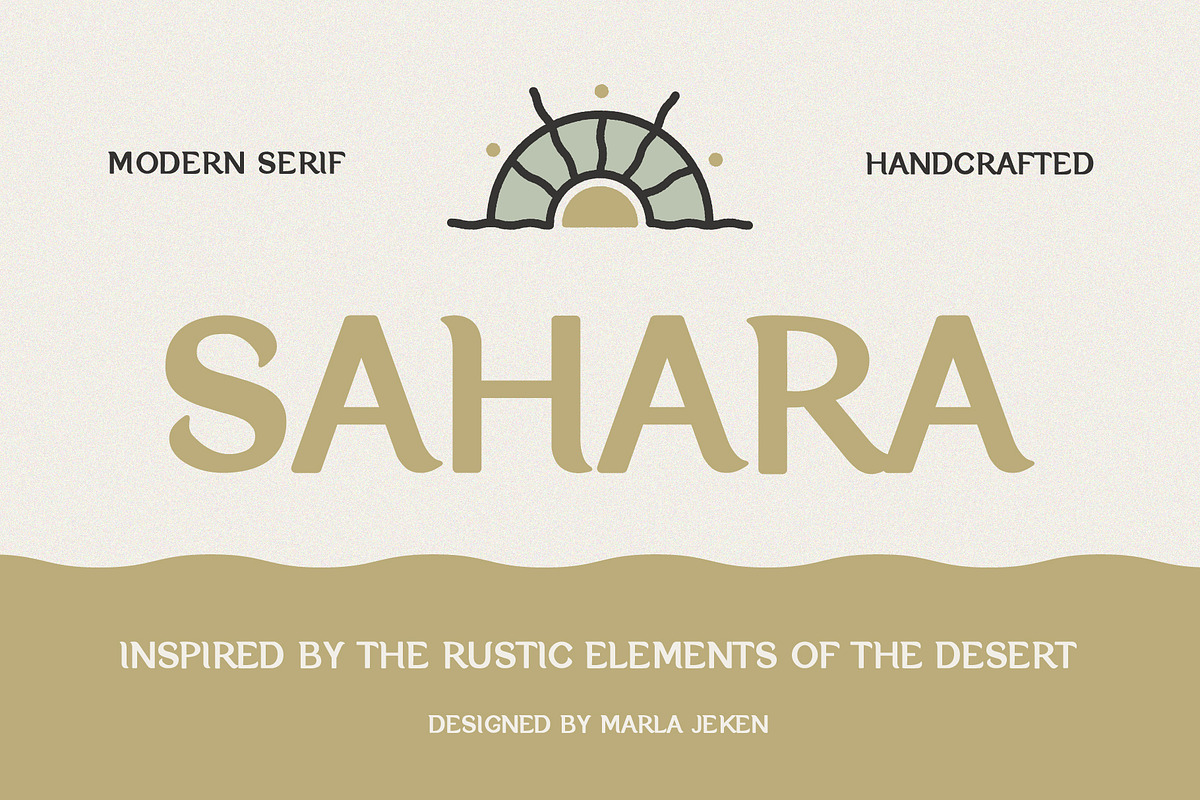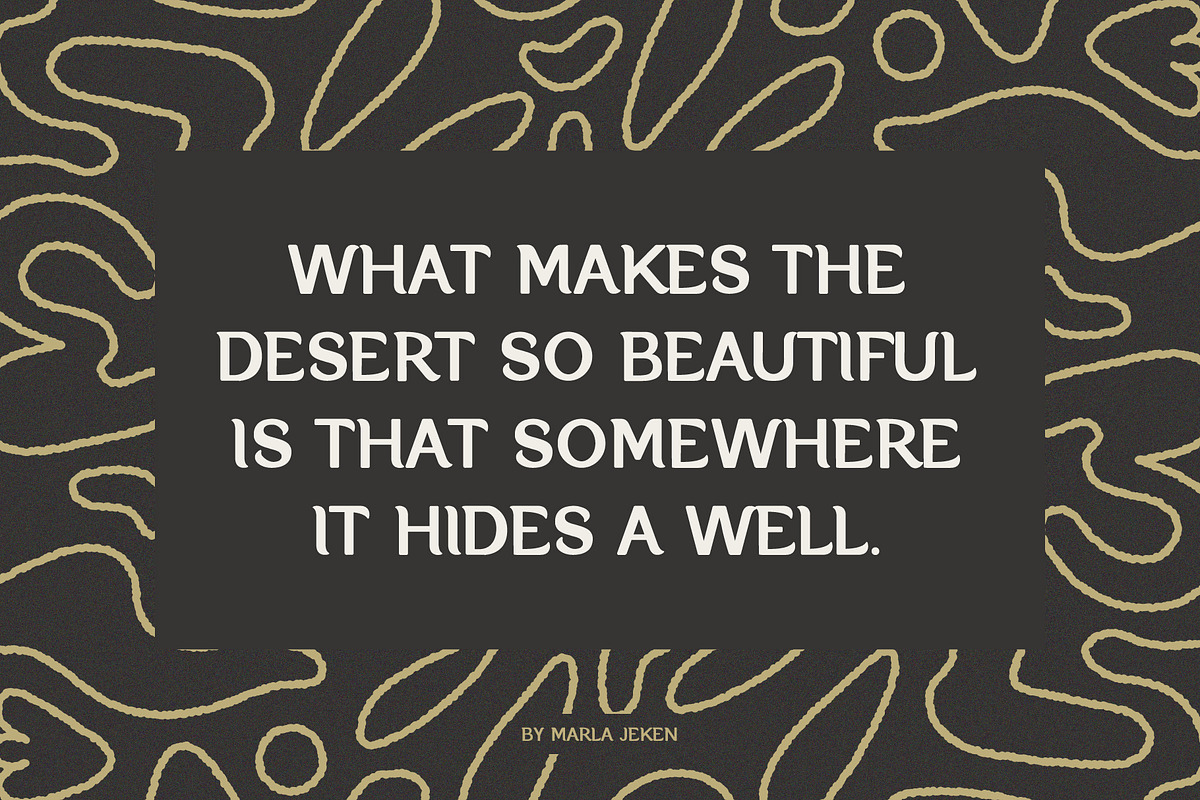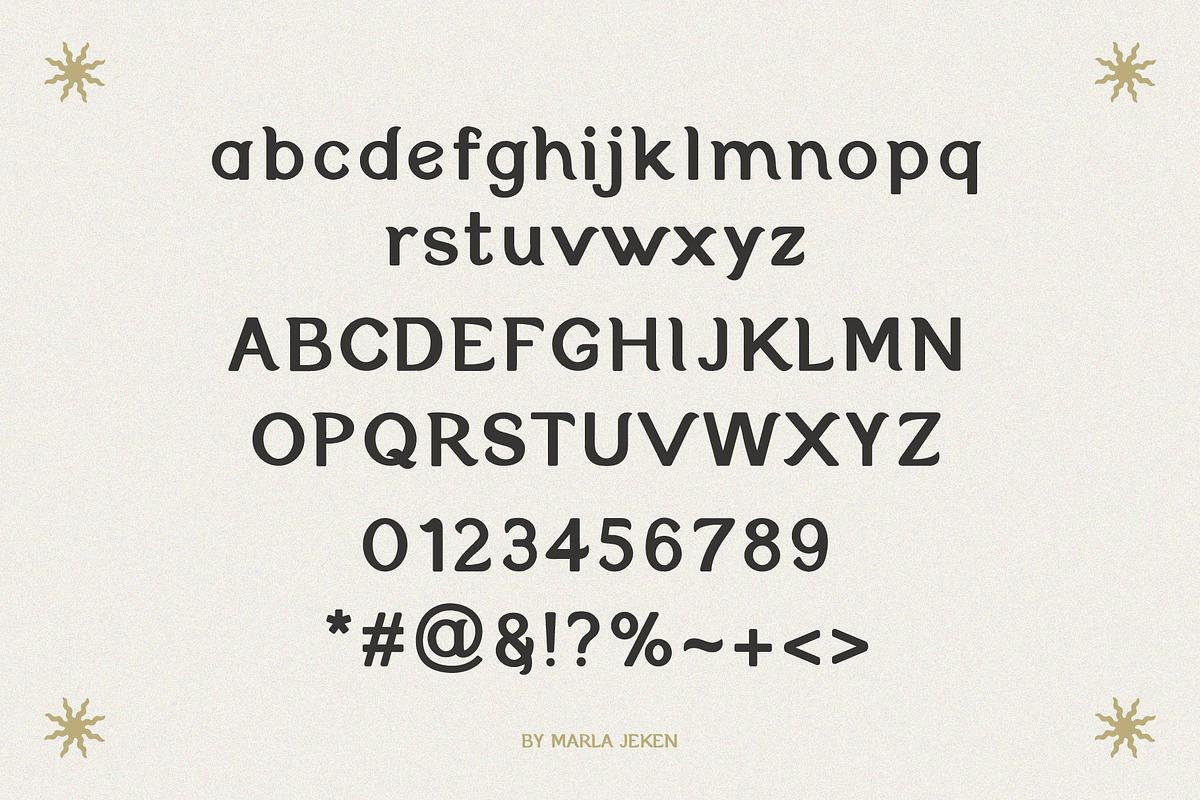
Sahara
Sahara Rust is a modern typeface inspired by the rustic elements of the African desert. This font hints at the rugged and adventurous qualities of the desert environment. This font is very versatile, great to use it in paragraphs or as large lettering for your next project!